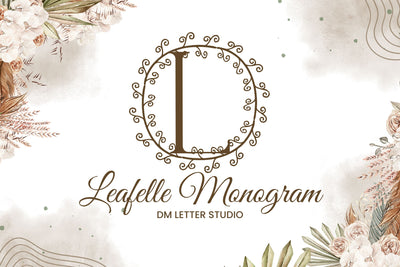
Leafelle Monogram
Leafelle Monogram – Elegant Serif Monogram with Whimsical Leaf Accents
Leafelle Monogram is a graceful serif monogram font adorned with delicate leaf embellishments, making it the perfect choice for personalized, nature-inspired designs. Each uppercase letter is infused with gentle organic details that add charm and sophistication to any creative project—ideal for wedding invitations, brand identity, packaging, and home décor.
Serif Monogram Style: Classic and refined serif letters with high legibility and timeless appeal.
Leaf Accents: Whimsical botanical flourishes give each letter a natural and elegant aesthetic.
Perfect for Personalization: Use for initials, logos, gift tags, invitations, and Cricut or Silhouette crafts.